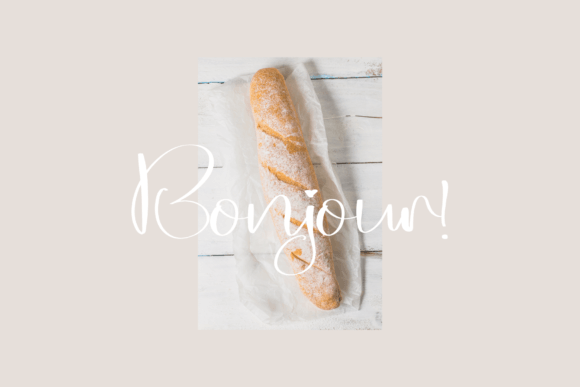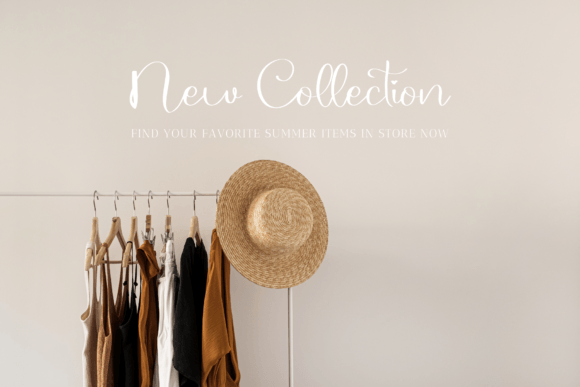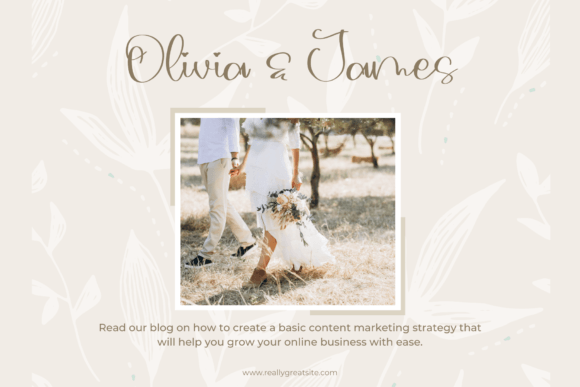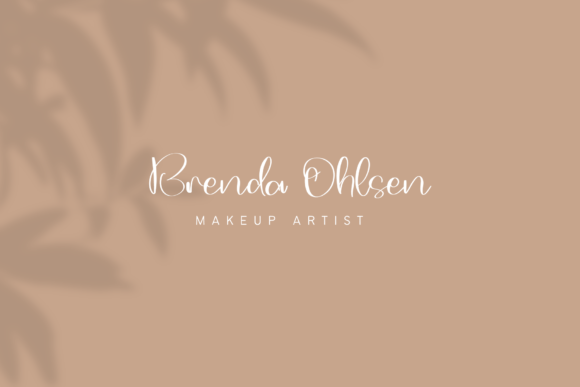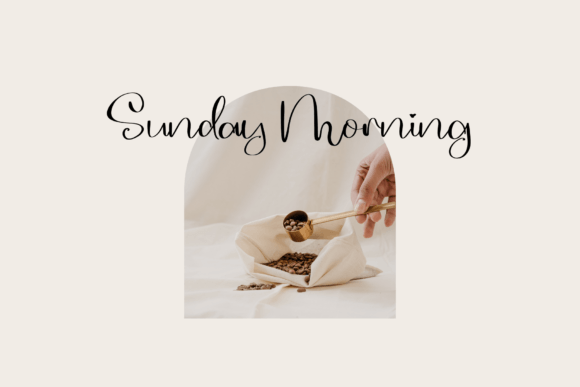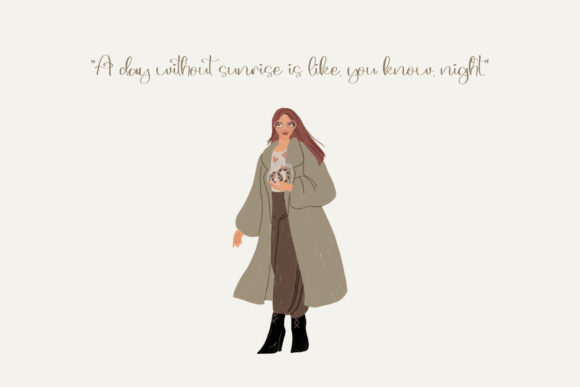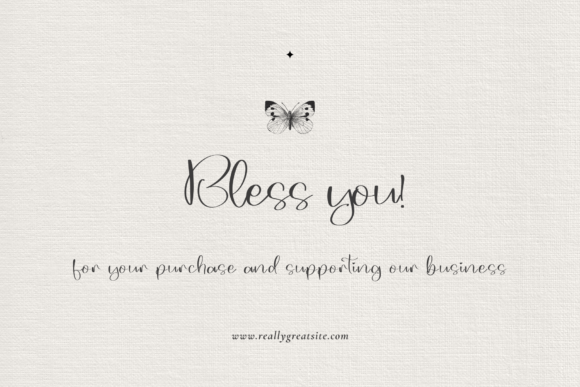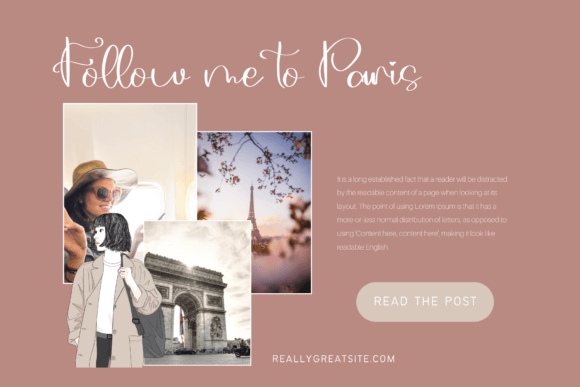
Galia Makalia Font
About Galia Makalia Font
“Galia Makalia” is a beautiful and delicate handwritten font that exudes a unique charm and makes a stunning impact on any design project. This font is designed to add a touch of luxury and sophistication to your creations, whether you’re working on branding, invitations, stationery, or any other design endeavor.
What sets “Galia Makalia” apart is its unique and distinctive style. Its characters are carefully crafted to convey elegance and individuality, making it an ideal choice for projects where a refined and luxurious look is desired.
One notable feature of “Galia Makalia” is its PUA encoding, which grants you easy access to all the amazing glyphs and ligatures included with the font. This feature allows for greater customization and creativity, enhancing the font’s versatility and usability in various design applications.
With “Galia Makalia” in your font arsenal, you have a powerful tool to infuse your design projects with a touch of luxury and style. It serves as a reminder of how typography can elevate your creative work to new heights.
In summary, “Galia Makalia” is a beautiful and delicate handwritten font that adds a luxurious and sophisticated touch to your design projects. Its unique style, coupled with PUA encoding for easy access to glyphs and ligatures, makes it a versatile choice for branding, invitations, stationery, and more. “Galia Makalia” stands out as a font that brings a spark of luxury to every design.